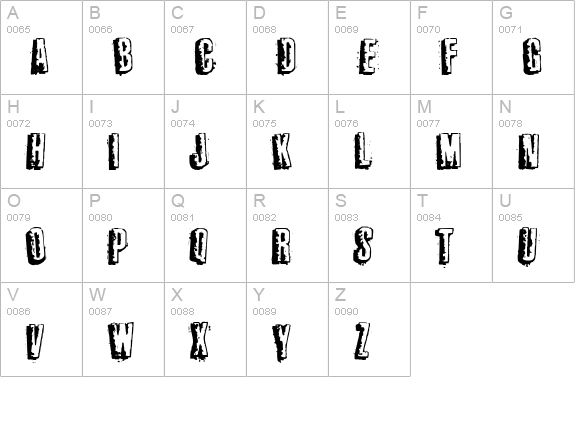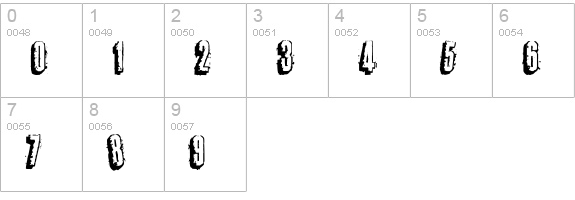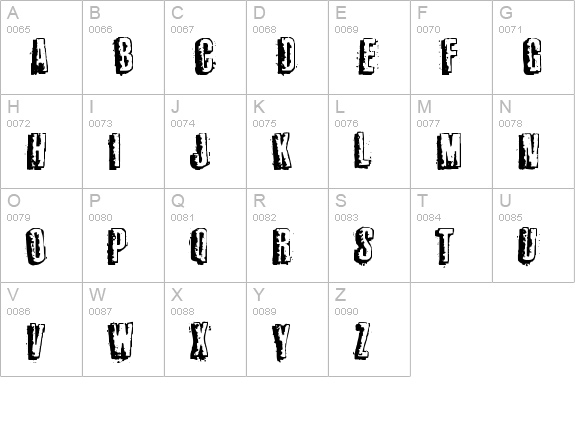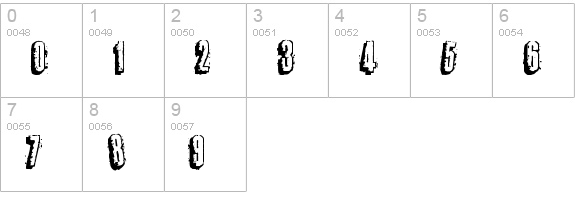
Third World Buzz Font Details
Introducing Third World Buzz, a captivating and versatile font that beautifully blends modern design with a touch of retro nostalgia. This font is the epitome of creativity, allowing you to transform any project into a work of art. Third World Buzz boasts a unique and eye-catching style, with its bold and dynamic letterforms that effortlessly command attention. Whether you're designing an eye-catching logo, creating stunning headlines, or crafting a visually stunning poster, this font will bring your creations to life with its distinct personality and charm. What sets Third World Buzz apart is not just its striking aesthetics, but also its incredible versatility. It seamlessly adapts to various design styles, making it suitable for a wide range of projects, from vintage-inspired designs to contemporary masterpieces. With its bold presence, this font conveys a sense of confidence and strength, making it perfect for fashion, music, and lifestyle brands or any project that requires a bold statement. And the best part? Third World Buzz is available to you for free! Yes, you read that right. This extraordinary font can be freely downloaded at FontsMarket.com, ensuring that you can bring your creative visions to life without breaking the bank. So whether you're a professional designer, a passionate hobbyist, or a student on a tight budget, Third World Buzz is here to support your creative endeavors. Don't miss out on this incredible opportunity to elevate your designs with the captivating charm of Third World Buzz. Download it today from FontsMarket.com and get ready to make a lasting impression with your next project.